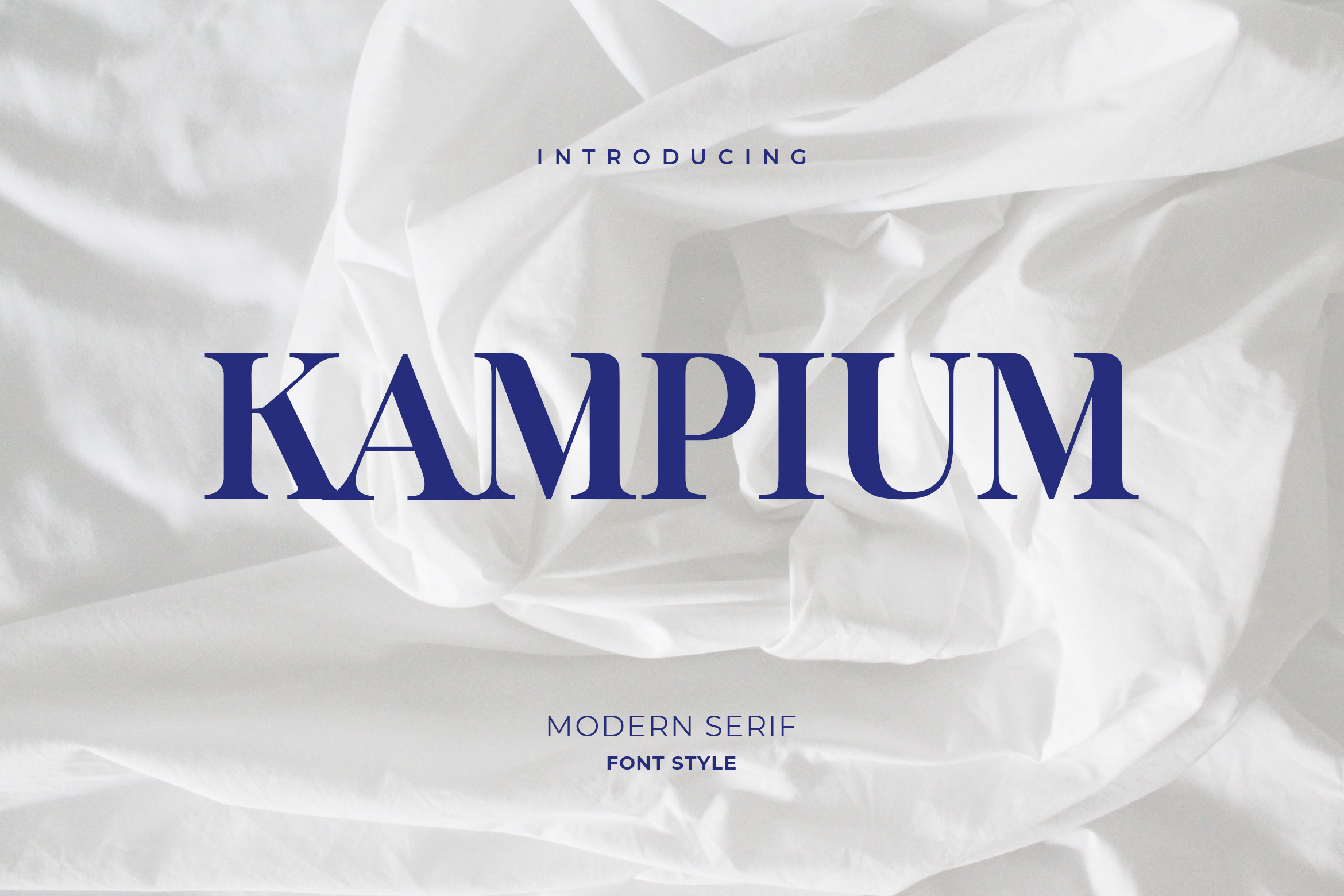
Kampium Serif Font
Kampium is Serif Font and also has vintage display font. Can make it easier to convey the message in your design. Use for awesome display, labeling, clothing, movie sceen, poster, movie title, gigs, album covers, logos, and much more. It's also could be good for both fun and semi-formal text.